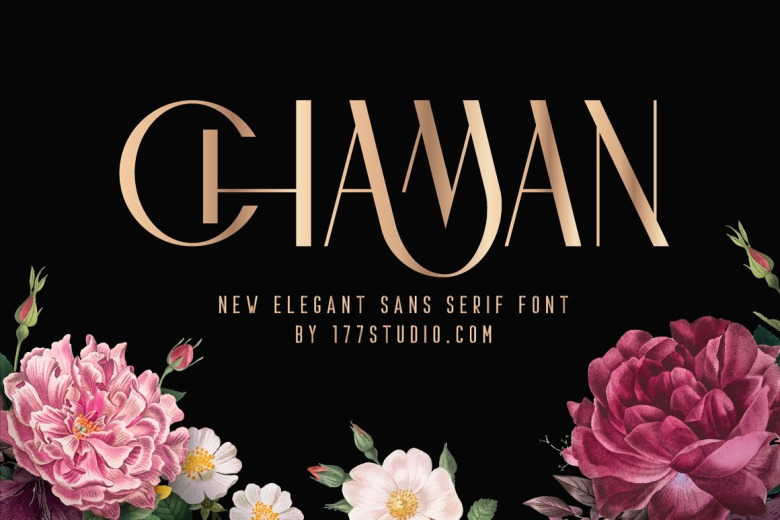
Chaman Font
It’s my new elegant sans serif font that will bring in your projects a touch of luxury and style. This chic font takes the decoration out of deco but keeps those vintage curves. A perfect mix of new and old. Chaman Font is perfect match for logotypes, branding, wedding monograms and invitations, blog headlines and much more.